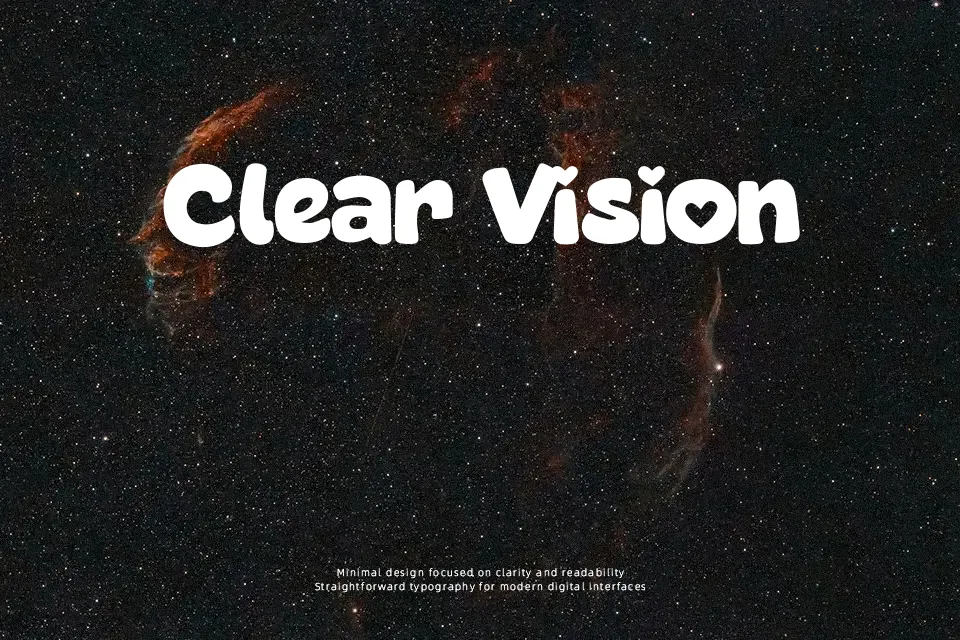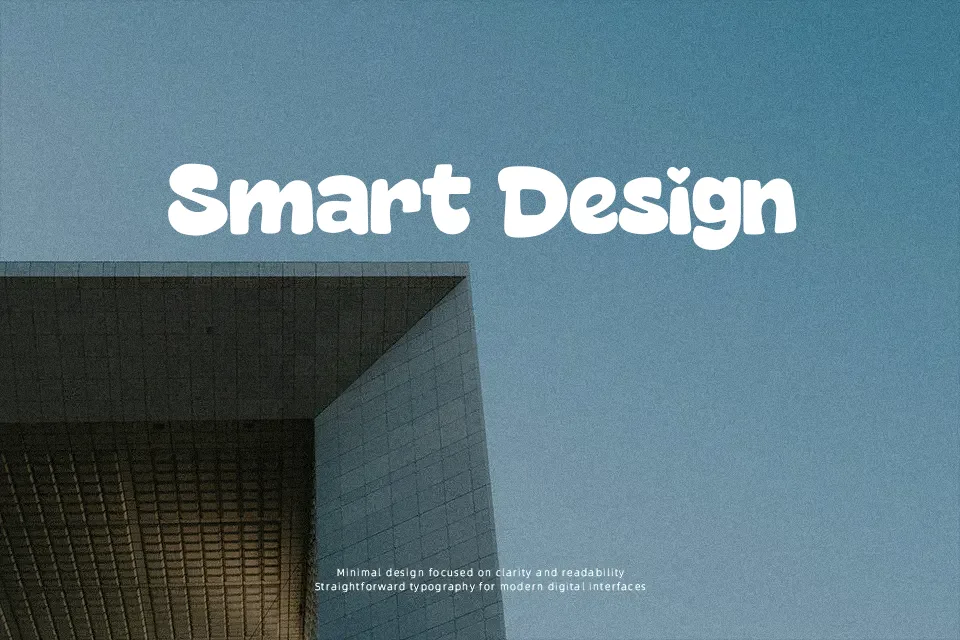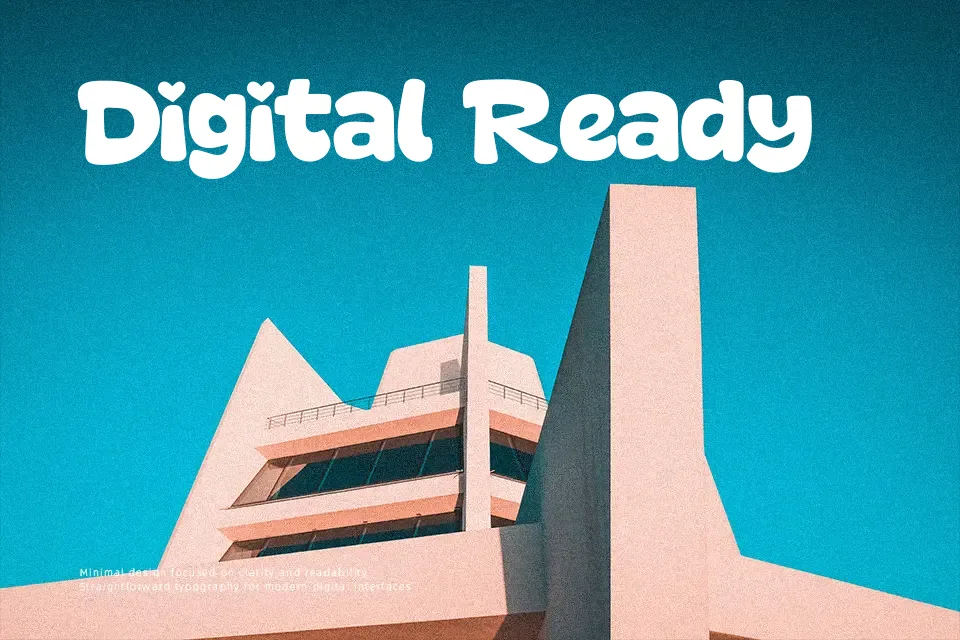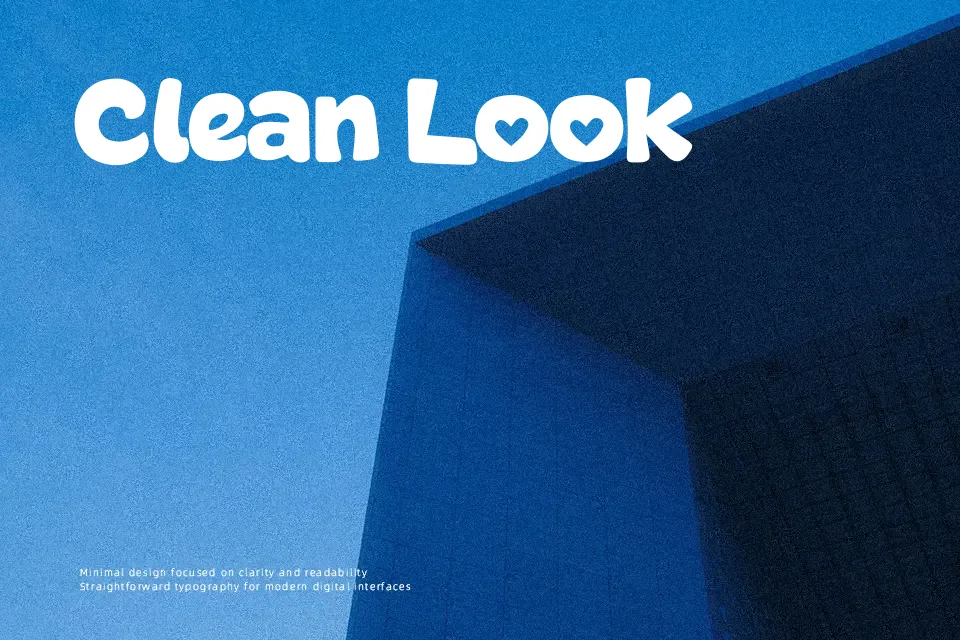
Romantic Christmas Font
Romantic Christmas Font brings a cheerful, cartoon-style presence to festive design projects. The letterforms feature thick, bouncy strokes and relaxed proportions that immediately establish a warm and inviting atmosphere. Spacing remains relatively open, allowing the characters to maintain clarity when scaled up for prominent display text. This typeface performs exceptionally well in seasonal product packaging or bright holiday posters where strong visual impact is needed. However, the decorative details and irregular baseline become less effective at smaller sizes, making it difficult to read in dense editorial layouts. The robust strokes help maintain legibility in short headlines, but the dense forms ultimately reduce comfort during extended reading.
holiday product packaging
festive event posters
seasonal retail displays
Perfect for christmas, headline, and packaging, with a creative and cartoon style.